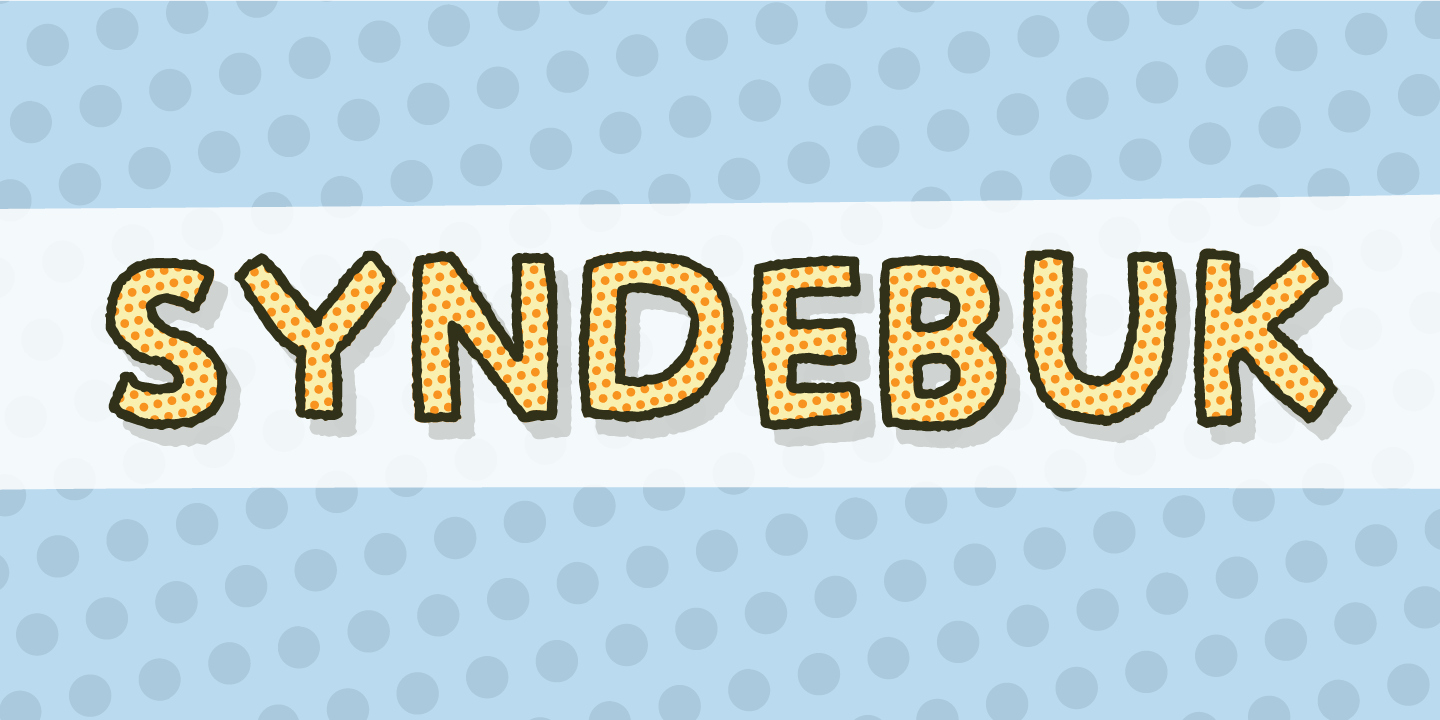
Syndebuk Font is perfect for modern branding projects, logo design, website headers, poster design, book covers, magazine layouts, social media graphics, packaging design, and creative advertising campaigns.
Syndebuk Font brings excitement to your design projects with its contemporary character structure and unique letterforms. This font creates a perfect balance between professionalism and creativity, making it an ideal choice for designers who want to make a bold statement. The carefully crafted curves and distinctive style elements of Syndebuk Font ensure that your text stands out while maintaining excellent readability across all platforms.
Syndebuk Font family includes multiple weights and styles: Regular, Bold, Light, Medium, Black, and Italic variations. Each style maintains the font's core characteristics while offering different levels of emphasis and visual impact for your design needs.
Whether you're working on corporate identity, editorial design, or digital marketing materials, Syndebuk Font Free Download provides the versatility and quality you need. The font's modern aesthetic makes it suitable for tech companies, creative agencies, fashion brands, and contemporary businesses looking to establish a strong visual presence.